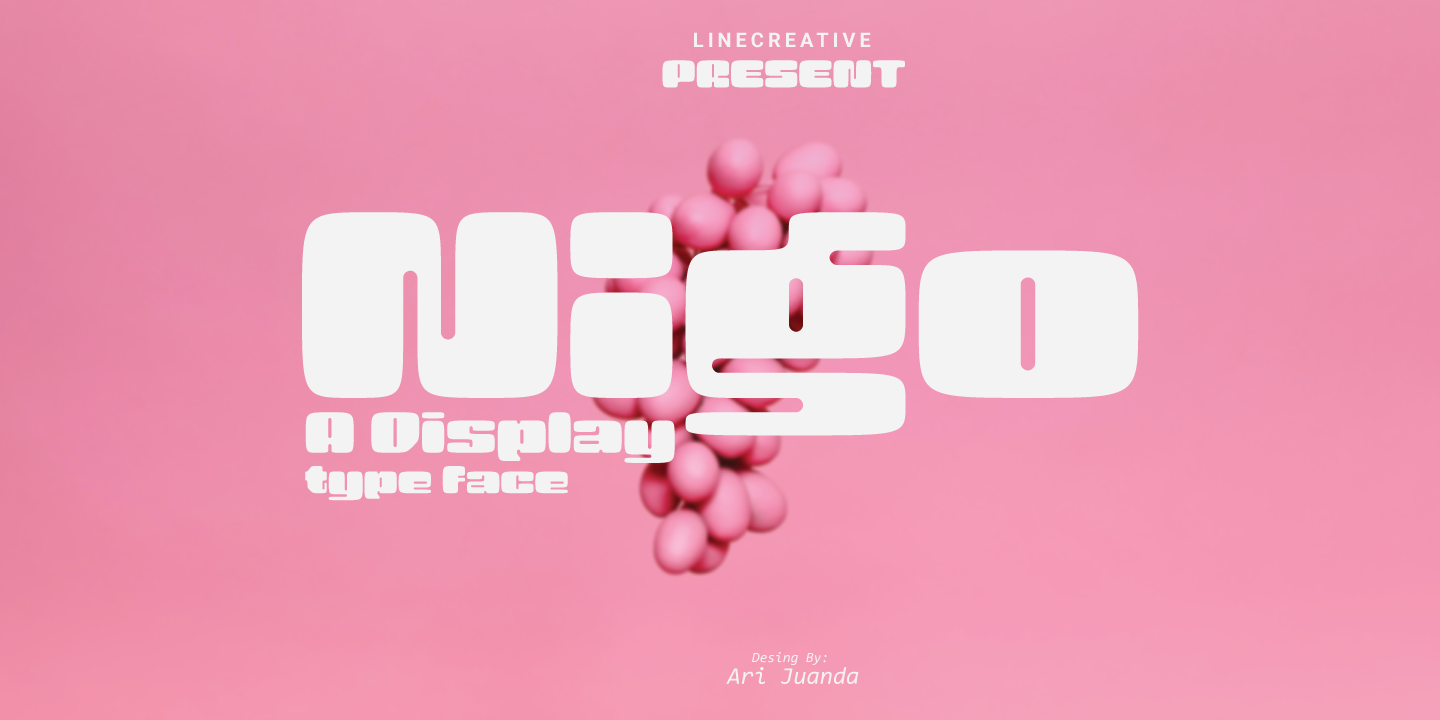
The Nigo Font is a strikingly modern and often urban-inspired display typeface, characterized by its bold, assertive forms and a distinct sense of contemporary style. Imagine its impactful characters dominating streetwear branding, adding a dynamic edge to music album covers for genres like hip-hop or electronic, or creating captivating titles for cutting-edge digital art and animation. Its robust construction and often geometric yet slightly unconventional letterforms also make it an excellent choice for unique event posters, vibrant social media campaigns, and any design where a strong, confident, and unforgettable visual statement is paramount. Whether you're aiming for a sleek, high-energy look or a bold, artistic aesthetic, Nigo Font delivers with its unmistakable personality, ensuring your visuals are both intriguing and truly memorable.
What makes Nigo Font so exciting is its ability to infuse designs with an immediate sense of urban cool and modern dynamism. In a visual landscape that thrives on innovation and strong statements, this font stands out with its powerful visual impact and remarkable legibility, even in its more stylized forms. It’s more than just a typeface; it’s a design accelerant that can instantly communicate cutting-edge style, confidence, and a sophisticated, forward-thinking attitude. Nigo Font offers designers the opportunity to create visuals that are both visually assertive and remarkably clear, making it an invaluable asset for those looking to communicate a sense of power, uniqueness, and contemporary flair in an impactful form.
The Nigo Font family is typically structured to offer a range of styles that amplify its bold and expressive appeal. Beyond the primary Nigo Regular typeface, you might find companion styles such as a more impactful Nigo Bold for even stronger emphasis, or perhaps Nigo Condensed for tighter spaces while maintaining its strong presence. Given its display nature and focus on impact, the family may also include variations with different internal structures, outlines, or even layered versions that allow for multi-color effects, enhancing its three-dimensional potential. These diverse family members provide designers with the flexibility to establish a clear typographic hierarchy and maintain a consistent, high-impact, and often minimalist aesthetic across all elements of their project, from dominant headlines and logos to subtle design accents.